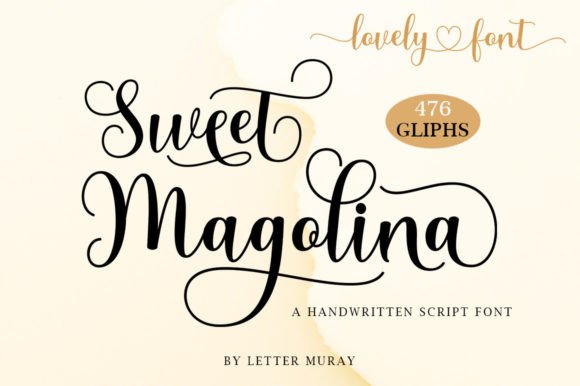
Sweet Magolina Font
Dive into the world of elegant and captivating typography with Sweet Magolina Script, a meticulously crafted font family designed to make your words dance with grace and charm. Immerse yourself in the beauty of this modern calligraphy typeface, a symphony of flowing lines and delicate swashes that capture the timeless essence of handwritten artistry.
With Sweet Magolina Script, your designs will exude a touch of sophistication and allure. Picture your wedding invitations, adorned with the graceful strokes of this font, setting the tone for a day filled with love and joy. Its natural and soft touch will add a personal, heartfelt element to your invitations, making them cherished keepsakes for years to come.
Beyond wedding invitations, Sweet Magolina Script shines as a versatile performer in the world of branding, parties, graduations, birthdays, and gatherings. Its stylish and trendy flair will elevate your designs to new heights, leaving a lasting impression on your audience. Whether you're creating marketing materials, social media graphics, or personal projects, this font will add a touch of magic to your creations.
Step into a world where elegance meets versatility, where your words come alive with the enchanting allure of Sweet Magolina Script. Experience the joy of seamless creativity as this font effortlessly complements your designs, adding a touch of sophistication and charm that will captivate and inspire. Unleash your imagination and let Sweet Magolina Script guide you towards design excellence.
Embark on a typographic journey like no other, where your designs blossom with the beauty of Sweet Magolina Script. Embrace the power of this modern calligraphy typeface to transform your words into works of art, leaving a lasting impression on all who behold them.